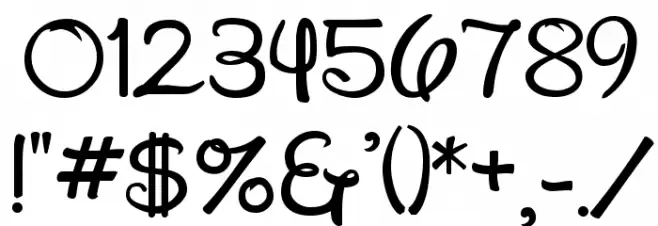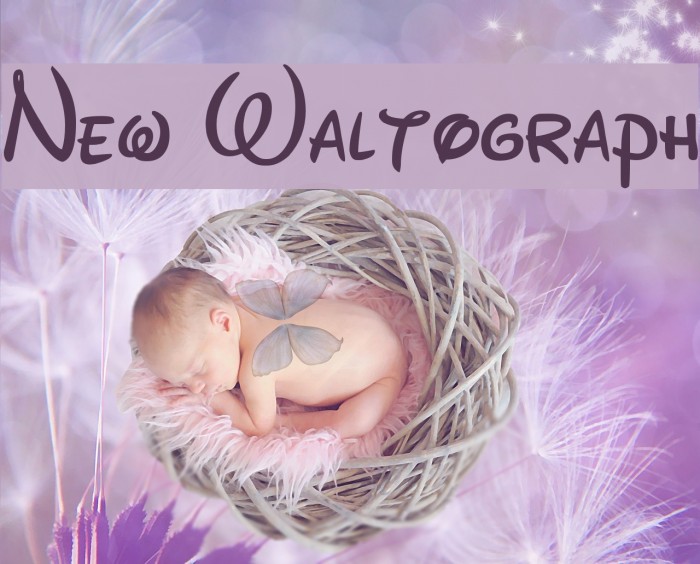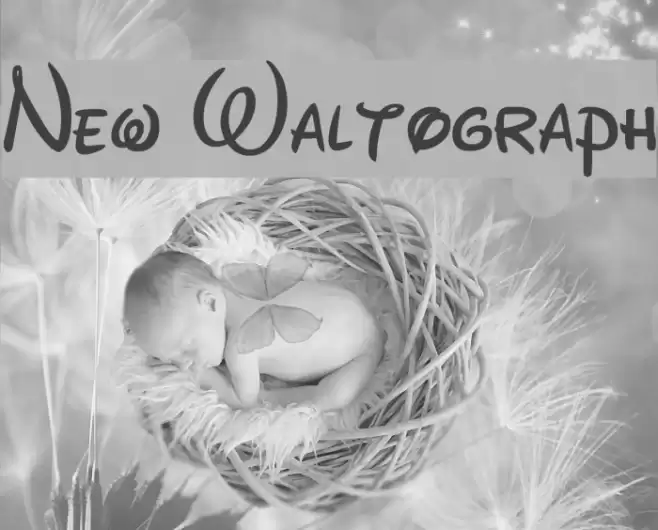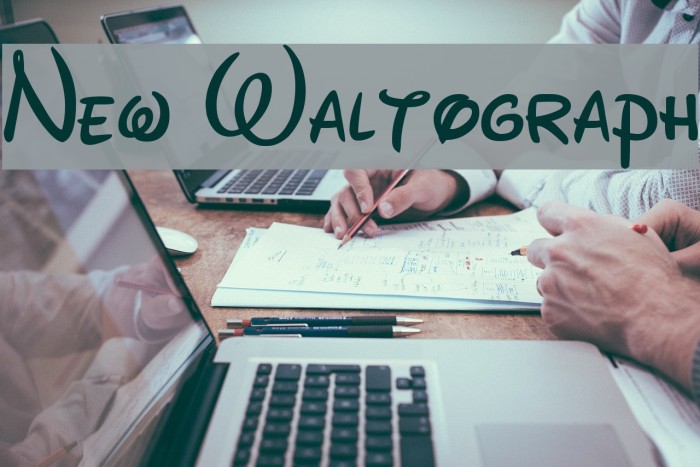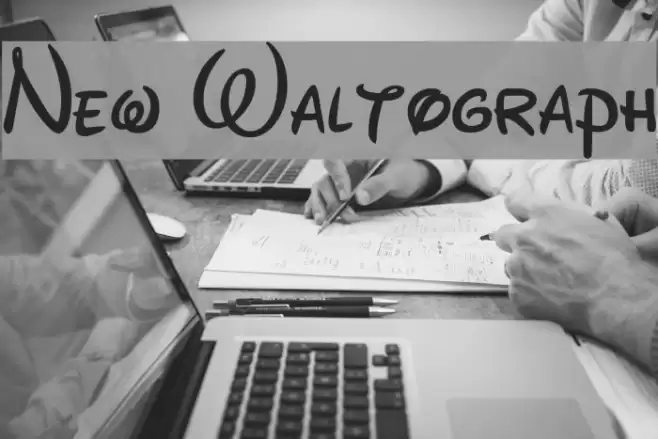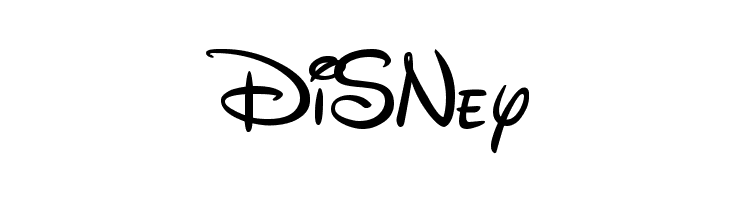
New Waltograph Font
New Waltograph Description
This playful and whimsical font features a handwritten style with a smooth, flowing appearance. The characters are rounded and slightly exaggerated, giving them a cartoonish and friendly feel. The uppercase letters are bold and prominent, while the lowercase letters maintain a consistent style with a slightly more compact form. The numbers and special characters follow the same playful aesthetic, making the font versatile for various creative applications. The overall design is reminiscent of classic animation lettering, making it ideal for projects that require a touch of nostalgia and fun.
| Use Case | Logos, Headlines, Posters |
| Proposed Projects | Ideal for children's books, animated movie titles, playful branding, and greeting cards. |